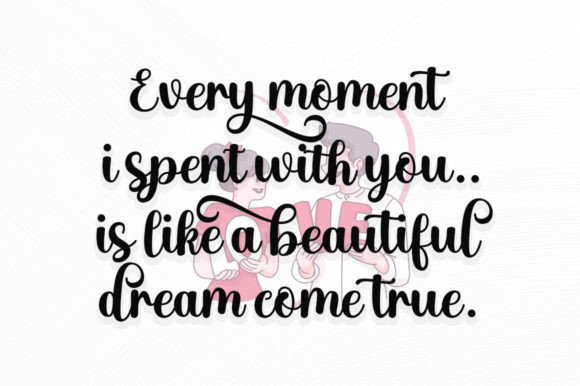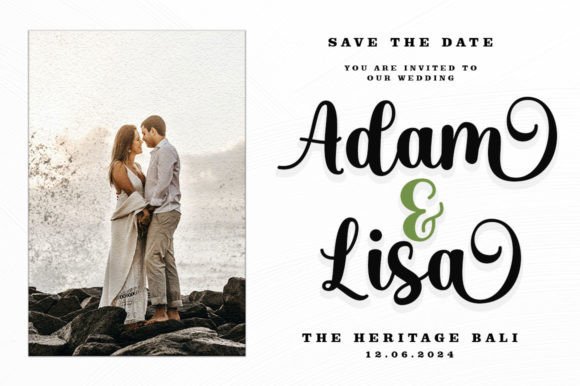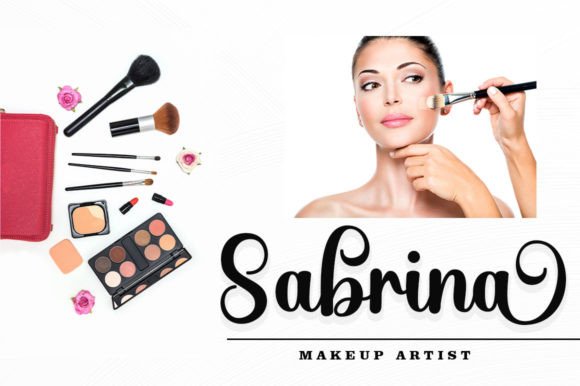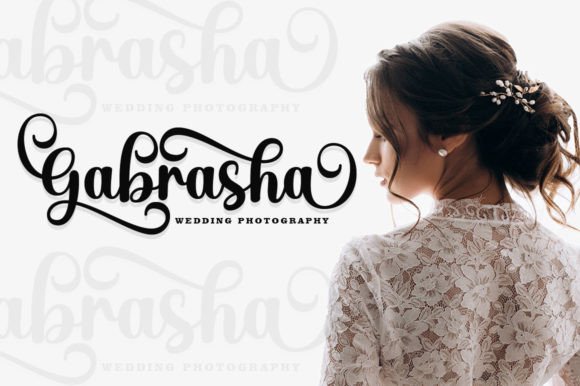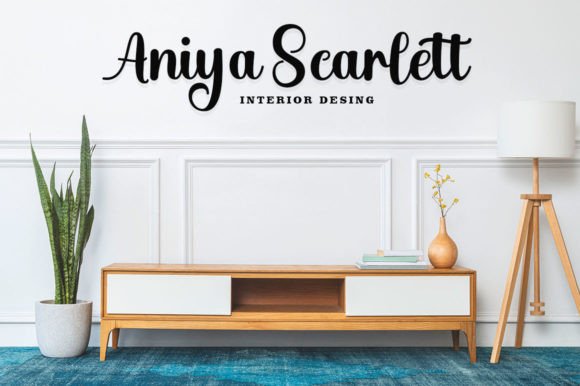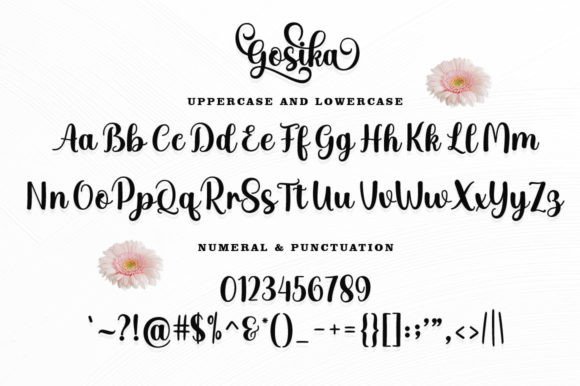
The Gasika Font: A Modern Calligraphy Dream
I’ll never forget the time I was working on a wedding invitation project, and my client asked for a font that was ” elegant, yet casual, and had a personal touch.” I scoured the internet, tried countless fonts, but nothing seemed to fit the bill. That was until I stumbled upon Gasika Font. This modern calligraphy font has been a game-changer for me, and I’m excited to share its beauty with you.
- ✨ Effortless elegance: Gasika Font exudes a sense of sophistication and refinement, making it perfect for high-end projects.
- ✅ Versatility: From logos to product packaging, wedding invitations to book covers, Gasika Font adapts seamlessly to various design needs.
- 💫 Unique character: The font’s subtle imperfections and varying stroke widths give it a human touch that’s hard to replicate with more traditional fonts.
While Gasika Font is an excellent choice, it’s not without its quirks. For instance:
- ⚠️ Limited multilingual support: If you need to work with languages that require non-ASCII characters, you might find Gasika Font limited in that regard.
- 🤔 Some glyphs require manual adjustment: Depending on the design, you might need to tweak certain glyphs to ensure they fit perfectly with the rest of the text.
Gasika Font was created by a talented designer who wanted to craft a font that would capture the essence of modern calligraphy. Inspired by the fluidity of handwritten scripts and the elegance of traditional calligraphy, Gasika Font was born. The designer’s goal was to create a font that would be both beautiful and versatile, suitable for a wide range of design applications.
| Font Name | Gasika Font |
| Author | madjack.font |
Q: What is Gasika Font best suited for?
A: Gasika Font is ideal for designs that require a touch of elegance and sophistication, such as logos, product packaging, wedding invitations, and more.
Q: Is Gasika Font available in different weights or styles?
A: Gasika Font comes in a range of weights and styles, making it versatile for various design applications.